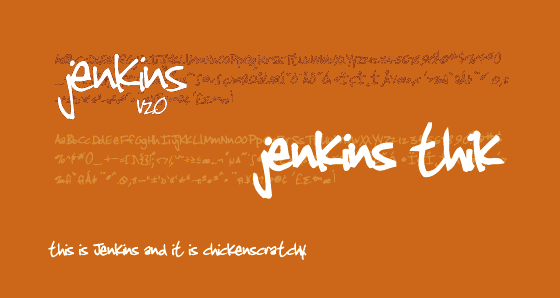
Jenkins v2.0
Lots of people keep using this font, one of my very firsts. Of course, when you learn to make fonts, your handwriting is usually in the beginning. Well, I re-did it just in time for January, this time with numbers, full punctuation, mathmatical characters…